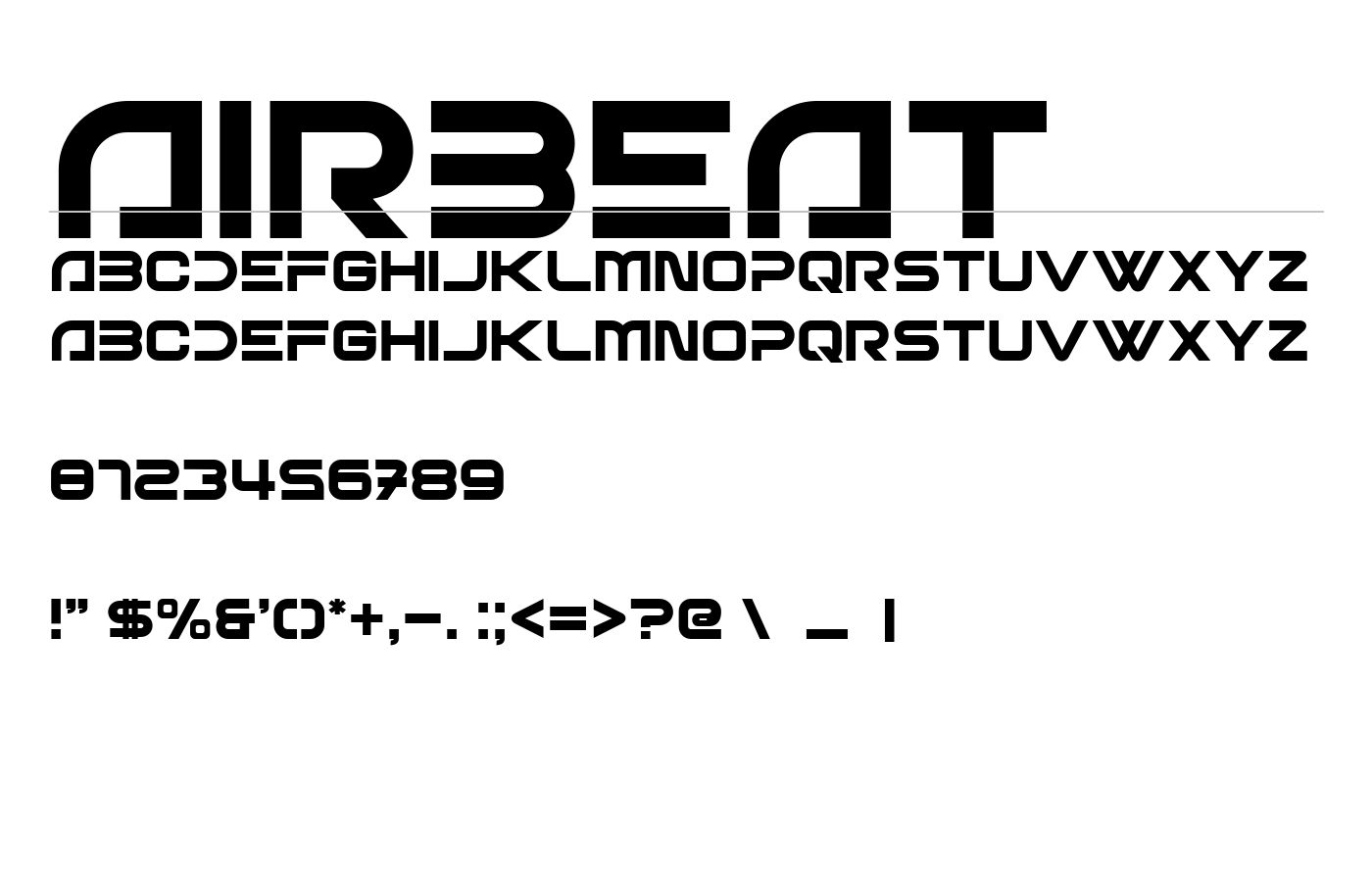
Airbeat is a bold, geometric sans serif font featuring a futuristic and techno vibe with its sharp angles and unique cut-outs. Its wide, uniform strokes and squared shapes give it a modern, digital feel perfect for branding, headlines, and posters that aim to stand out with a sleek, contemporary edge. This font works well in tech, gaming, and electronic music contexts where a striking, innovative appearance is key.
Airbeat Font
About Airbeat Font